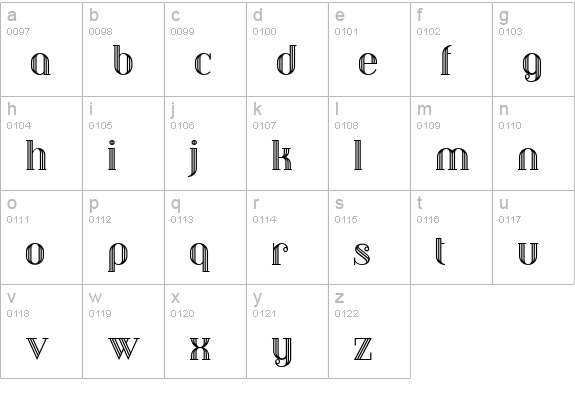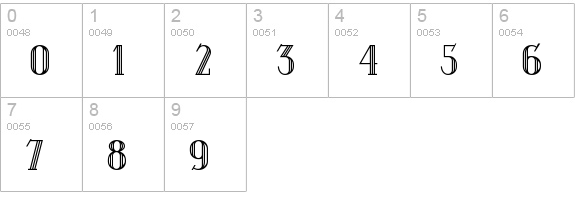
Debonair Inline NF Font Details
The Debonair Inline NF font is an exquisite and elegant typeface that exudes sophistication and charm. With its graceful curves and delicate lines, this font captures the essence of timeless beauty. Each letter is meticulously crafted to create a harmonious balance between classic and modern design elements. The Debonair Inline NF font is perfect for adding a touch of refinement to any project. Whether it's a wedding invitation, a logo design, or a book cover, this font will elevate your work to new heights of elegance. Its versatility allows it to be used in a variety of contexts, from formal and professional settings to more creative and artistic endeavors. One of the best things about the Debonair Inline NF font is that it is freely available to download at FontsMarket.com. This means that you can access this stunning typeface without any cost, making it an ideal choice for both personal and commercial projects. By offering this font for free, FontsMarket.com aims to promote accessibility and creativity in the design community. So, if you're looking for a font that effortlessly combines sophistication and style, look no further than the Debonair Inline NF font. Its timeless beauty and availability make it a must-have for any designer or typographer. Download it now from FontsMarket.com and elevate your designs to a whole new level of elegance.